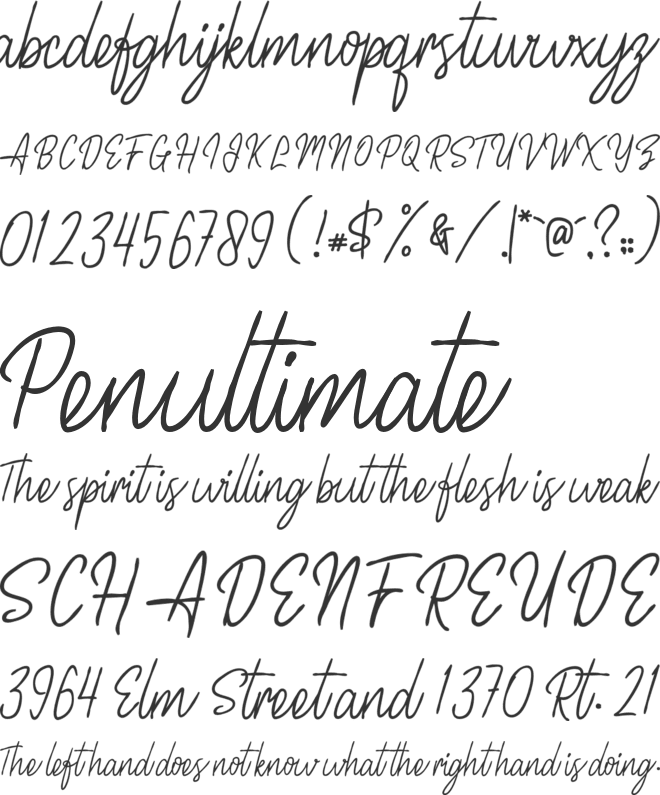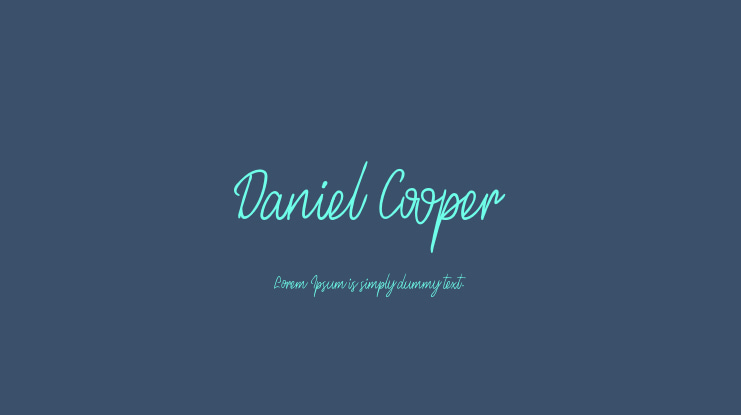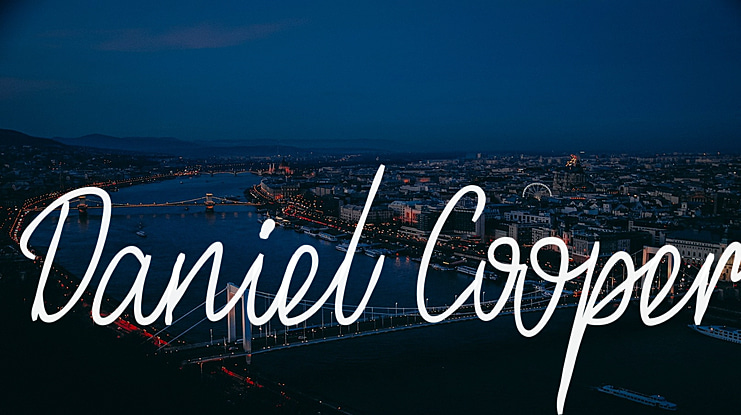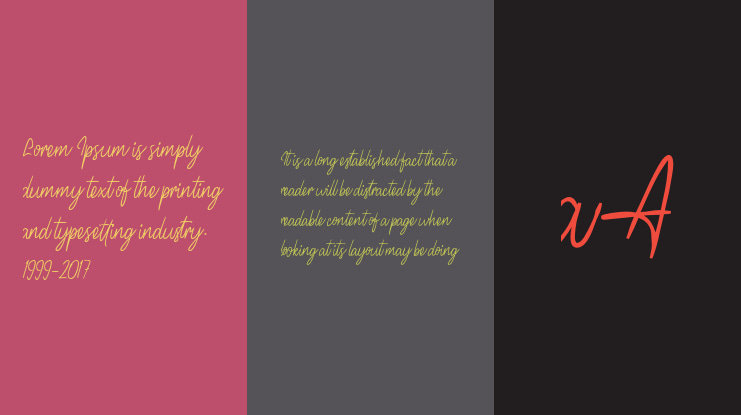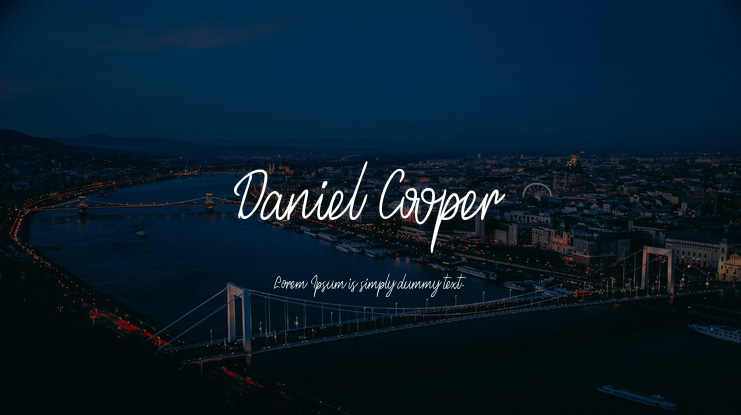
Daniel Cooper Font
Daniel Cooper Modern Handwritten Typeface, A collection of letters and numbers suitable your projects also great for Logotype, Branding Design, Logo Design, Digital Lettering Arts, T-Shirt/Apparel, Poster, Magazine, Signs, Advertising Design, and any design needsClick our website :https://staircaselab.com/product/daniel-cooper/